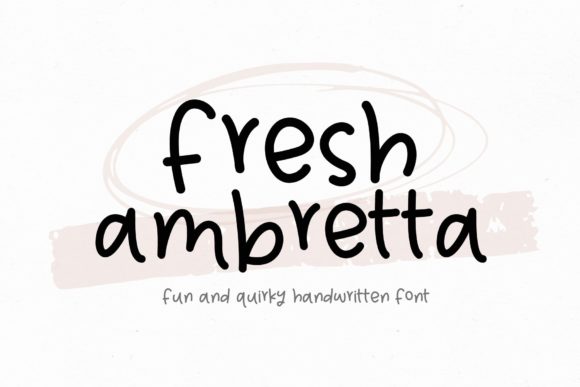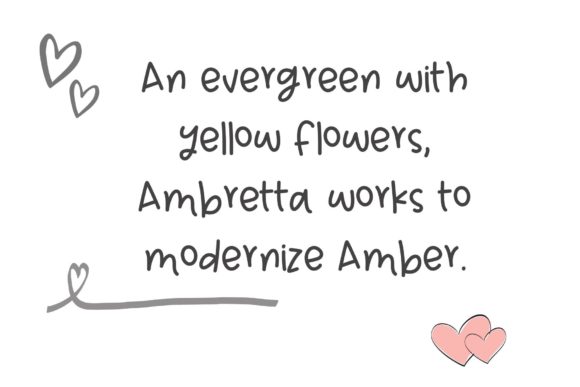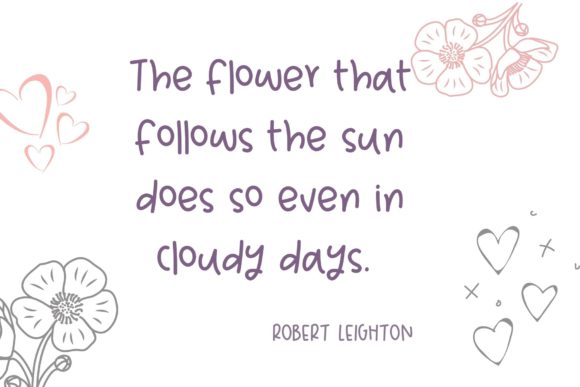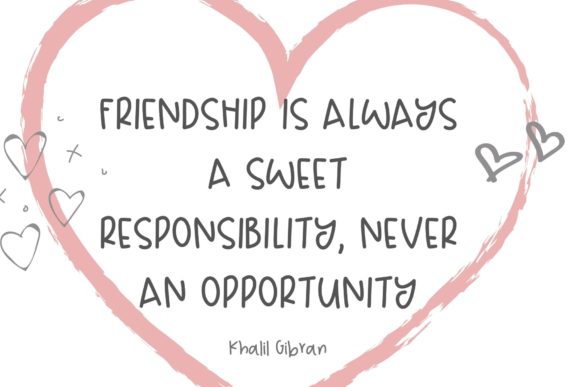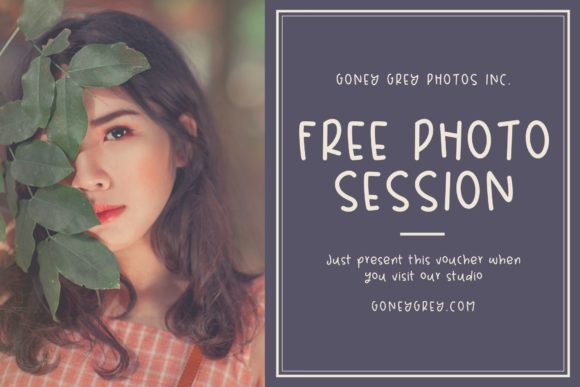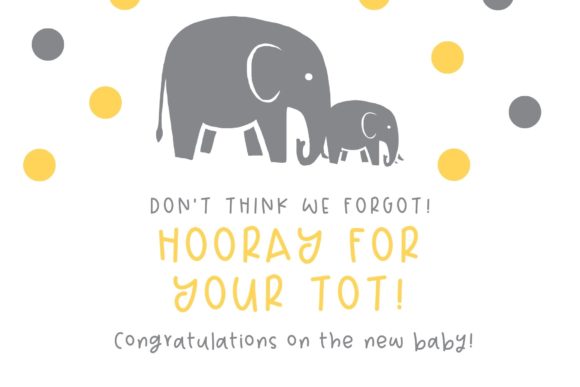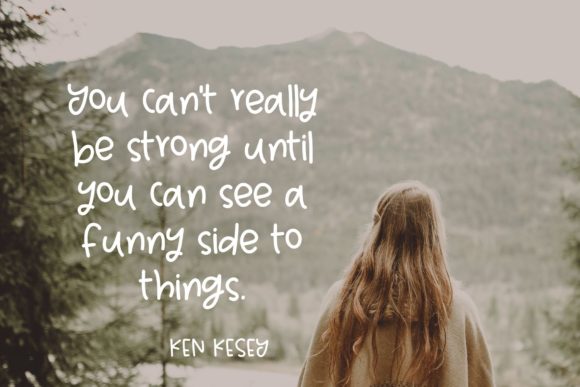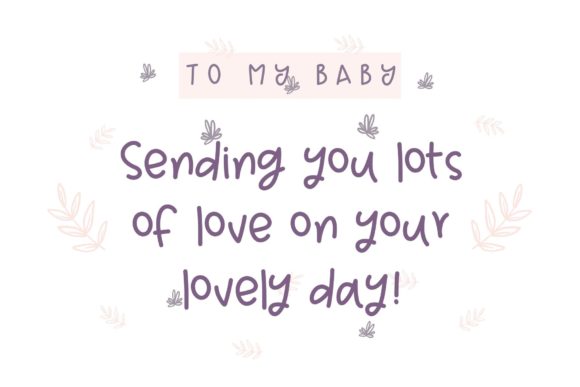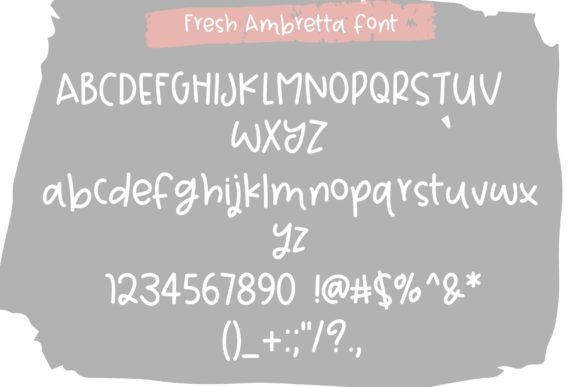
Fresh Ambretta Font
About Fresh Ambretta Font
Fresh Ambretta sounds like a delightful and playful handwritten font that exudes a fun and friendly vibe. Its quirky and childlike style makes it a perfect choice for various design projects, especially those aimed at children and schools. Here are some exciting ways to use Fresh Ambretta and infuse your designs with its joyful playfulness:
1. Kids’ Book Covers: Design captivating book covers for children’s stories and books using Fresh Ambretta’s fun and quirky script.
2. Children’s Educational Materials: Create engaging educational materials, such as worksheets and activity books, with Fresh Ambretta to make learning enjoyable for kids.
3. Kids’ Party Invitations: Design colorful and playful party invitations for children’s birthdays or special occasions using Fresh Ambretta.
4. Kids’ Clothing Brands: Use Fresh Ambretta in branding elements for kids’ clothing brands, adding a touch of whimsy to the brand identity.
5. School Posters: Create eye-catching posters for school events or announcements using Fresh Ambretta’s childlike playfulness.
6. Classroom Decorations: Make classroom decorations and displays more inviting with Fresh Ambretta’s friendly and quirky calligraphy.
7. Kids’ Craft Projects: Incorporate Fresh Ambretta in DIY craft projects for kids, such as personalized name banners and craft activity cards.
8. Children’s Website Graphics: Design kid-friendly website graphics and banners using Fresh Ambretta to create a welcoming online space for young visitors.
9. Childcare Center Branding: Use Fresh Ambretta in branding materials for childcare centers and preschools to reflect a cheerful and playful atmosphere.
10. Kids’ Party Decorations: Design banners, signage, and decorations for kids’ parties with Fresh Ambretta’s fun and quirky font.
11. Playful Quotes: Create colorful quote graphics featuring playful and uplifting quotes using Fresh Ambretta’s lively calligraphy.
12. Kids’ Menu Designs: Design creative and visually appealing kids’ menus for restaurants or cafes using Fresh Ambretta.
13. School Announcements: Use Fresh Ambretta in school newsletters and announcements to add a touch of joy and excitement.
14. Children’s Art Projects: Incorporate Fresh Ambretta in art projects for kids, such as drawing prompts and art activity sheets.
15. Kids’ Educational Apps: Use Fresh Ambretta in the design of educational apps and games to make the learning experience enjoyable for young users.
16. Birthday Cards for Kids: Create adorable and personalized birthday cards for kids using Fresh Ambretta’s friendly and quirky script.
17. Kids’ Worksheets: Design interactive and engaging worksheets for kids with Fresh Ambretta’s playful handwriting.
18. School Flyers: Make school event flyers more appealing and attention-grabbing with Fresh Ambretta’s fun and quirky lettering.
19. Children’s Logo Designs: Use Fresh Ambretta in logo designs for kids’ products and services to communicate a sense of playfulness and creativity.
20. Kids’ Stationery: Create cute and whimsical stationery items, such as notepads and stickers, using Fresh Ambretta’s childlike charm.
In conclusion, Fresh Ambretta’s fun and quirky handwritten style offers a world of creative opportunities for projects targeting children and schools. Embrace its friendly and playful demeanor to brighten up any design and make it more appealing to young audiences. With Fresh Ambretta’s childlike playfulness, you can create designs that spark joy and capture the imagination of kids.